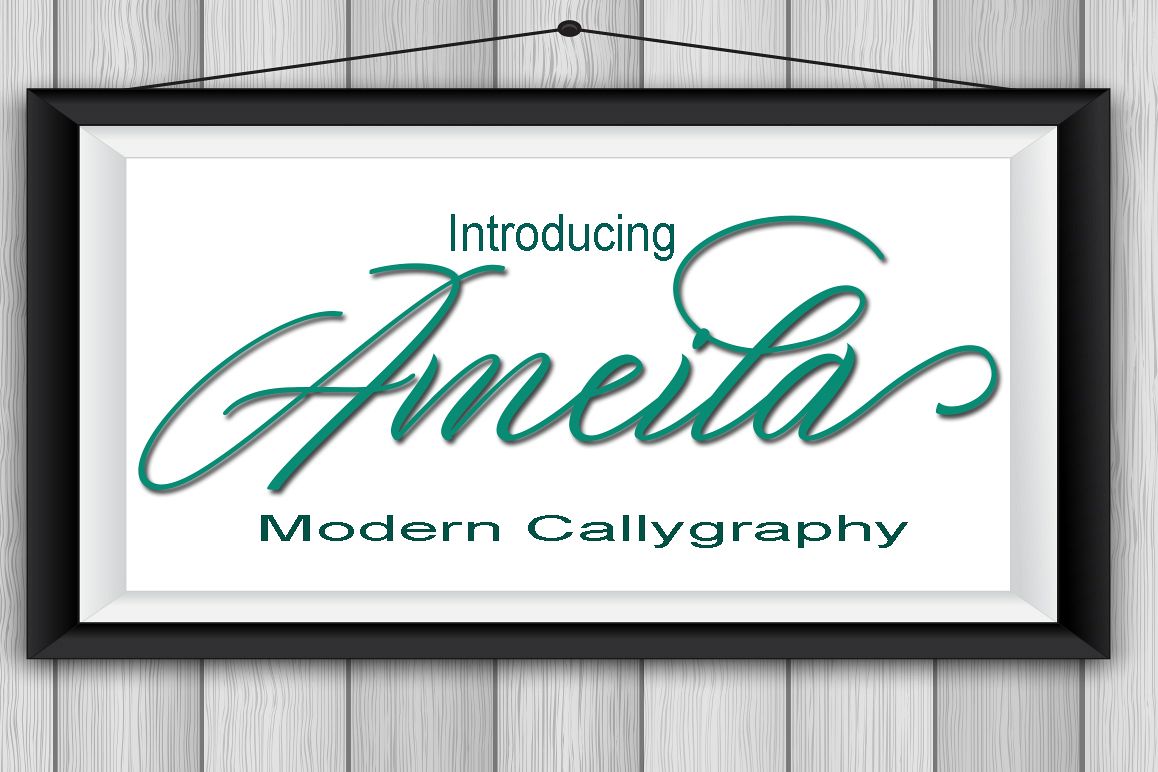
Ameila Script
Ameila-Regular
Ameila is a font bold, so, brush script that is beautiful and unique, it is a model of modern calligraphy typefaces, in combination with a calligraphy writing style.
The Features of this fonts is;
* Contextual Alternates
* Standart ligatures
* Discretionary ligatures
* Stylistic Alternates
* Stylistic sets
Languages supported: Breton, Catalan, Czech, Danish, Estonian,French, German, Hungarian, Icelandic, Italian, Romanian, Scottish Gaelic, Slovak, Latvian, Lithuanian, Norwegian, English, Finnish, Polish, Portuguese, Slovenian, Spanish, Swedish, Turkish, Welsh. Basically, all european languages that are based on latin alphabet